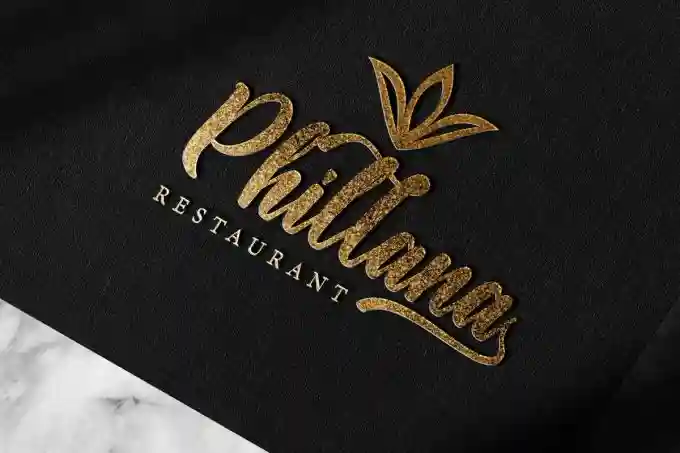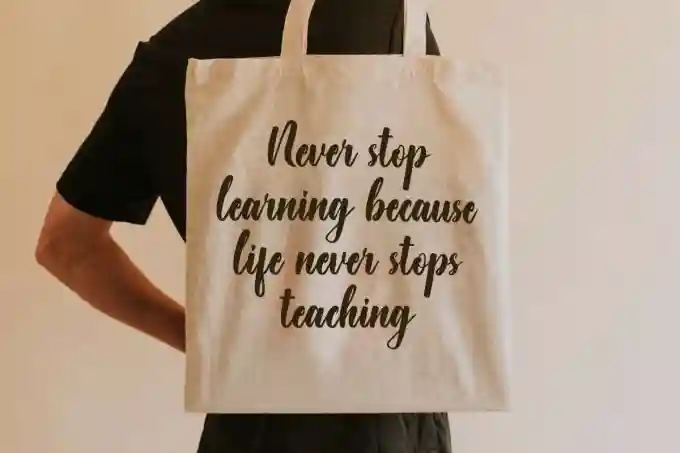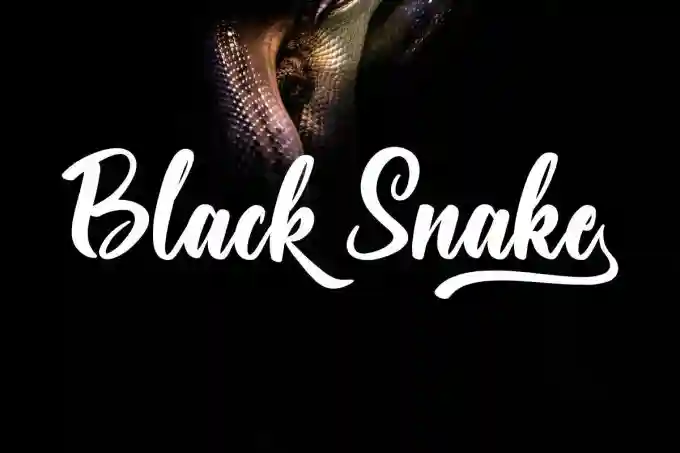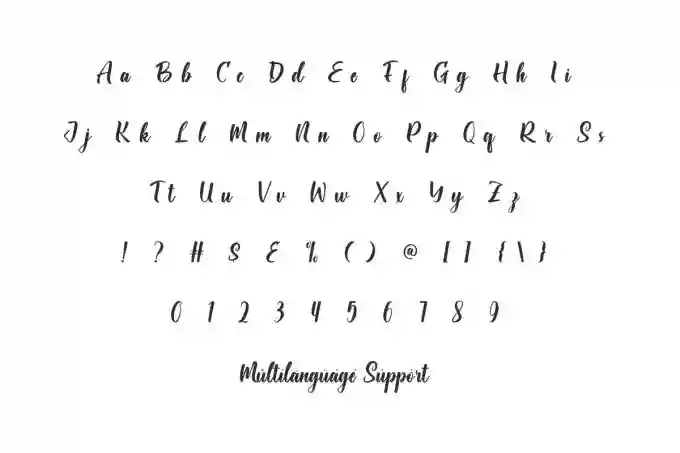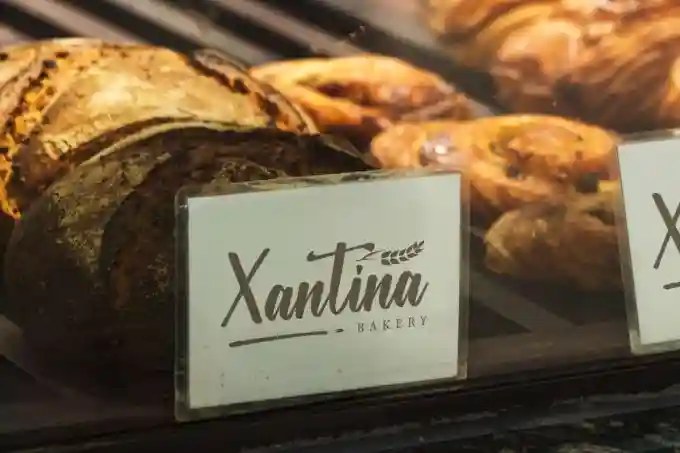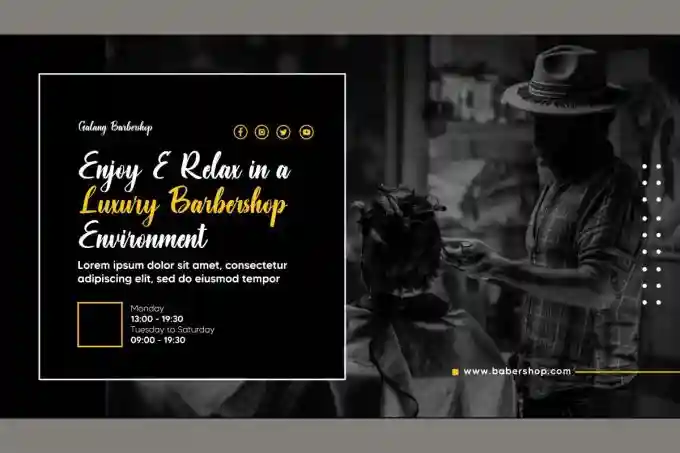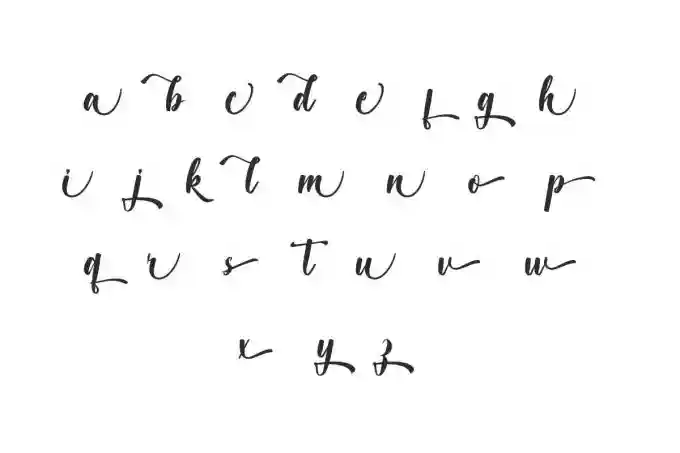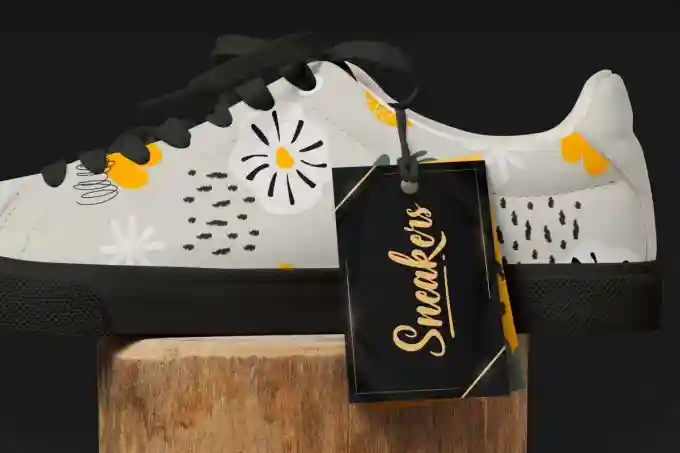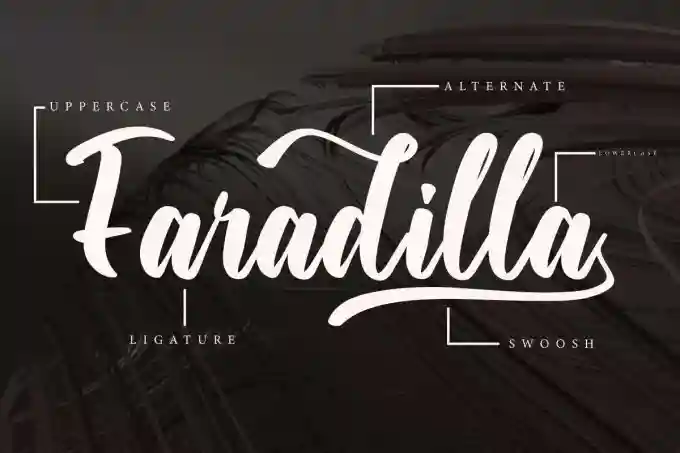
Black Snake Font is a classic script font with calligraphy style, created by VinType Studio. This font has a casual and basic vibes so it looks timeless and will be good for many designs, such as stationery, cover, poster, label, website, invitation, brochure, custom design, gift box, product packaging, quote, screen printing, and more!
Black Snake Font includes full set of Uppercase and Lowercase Basic Characters, and Numerals and Punctuation. This font also contain Ligature, Alternate, and Swoosh characters that will be suitable for industries, such as fashion, furniture, advertisement, restaurant, café, handicraft, resort, spa and salon, etc.